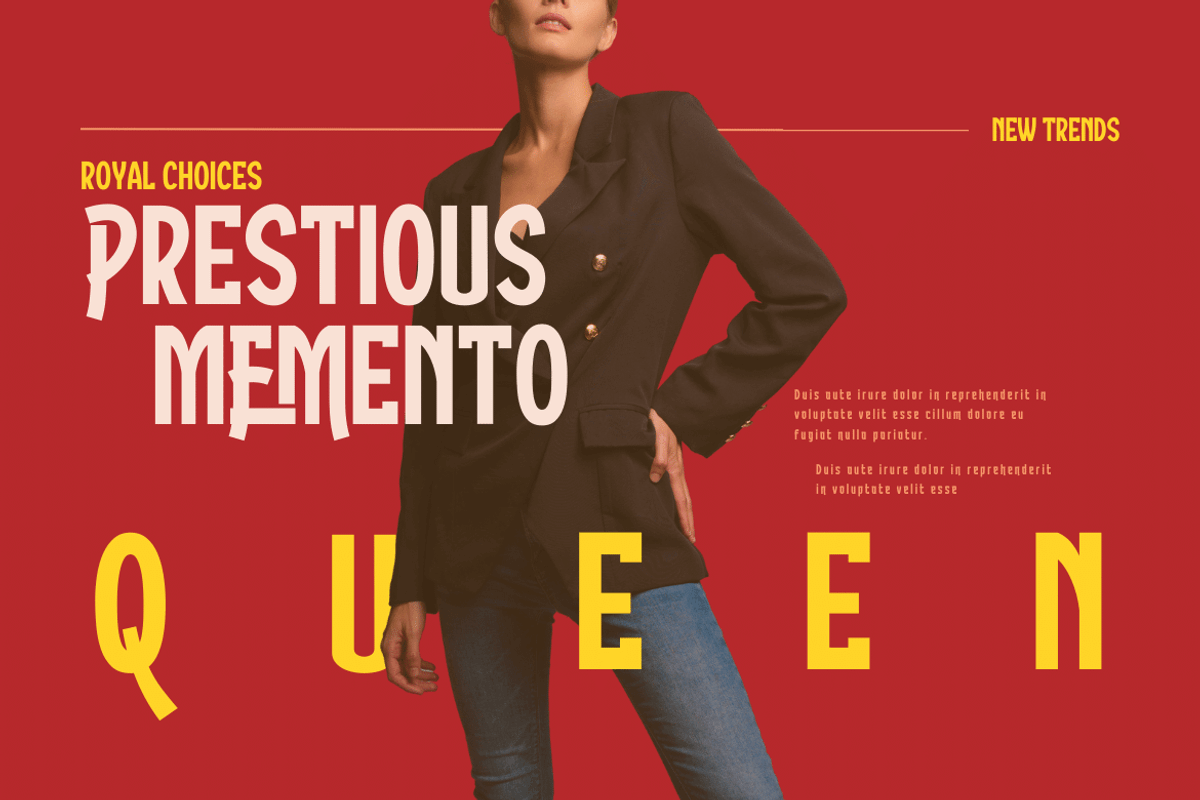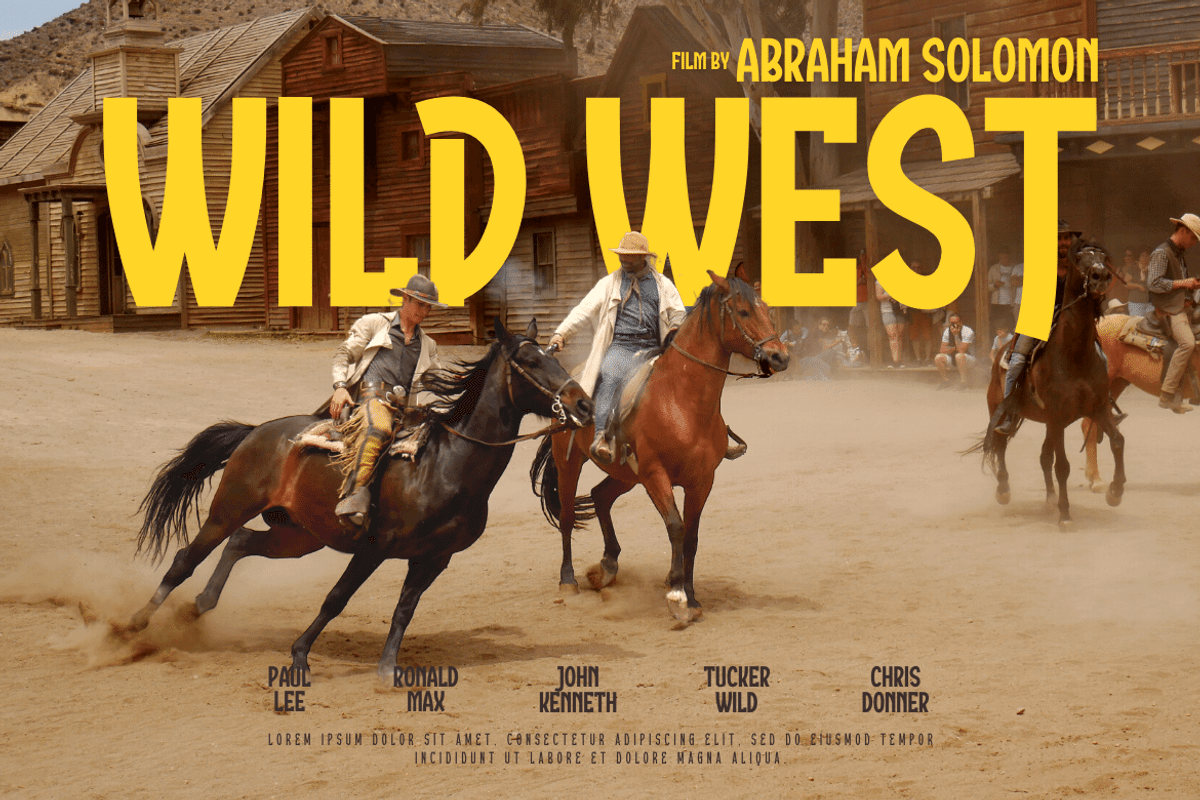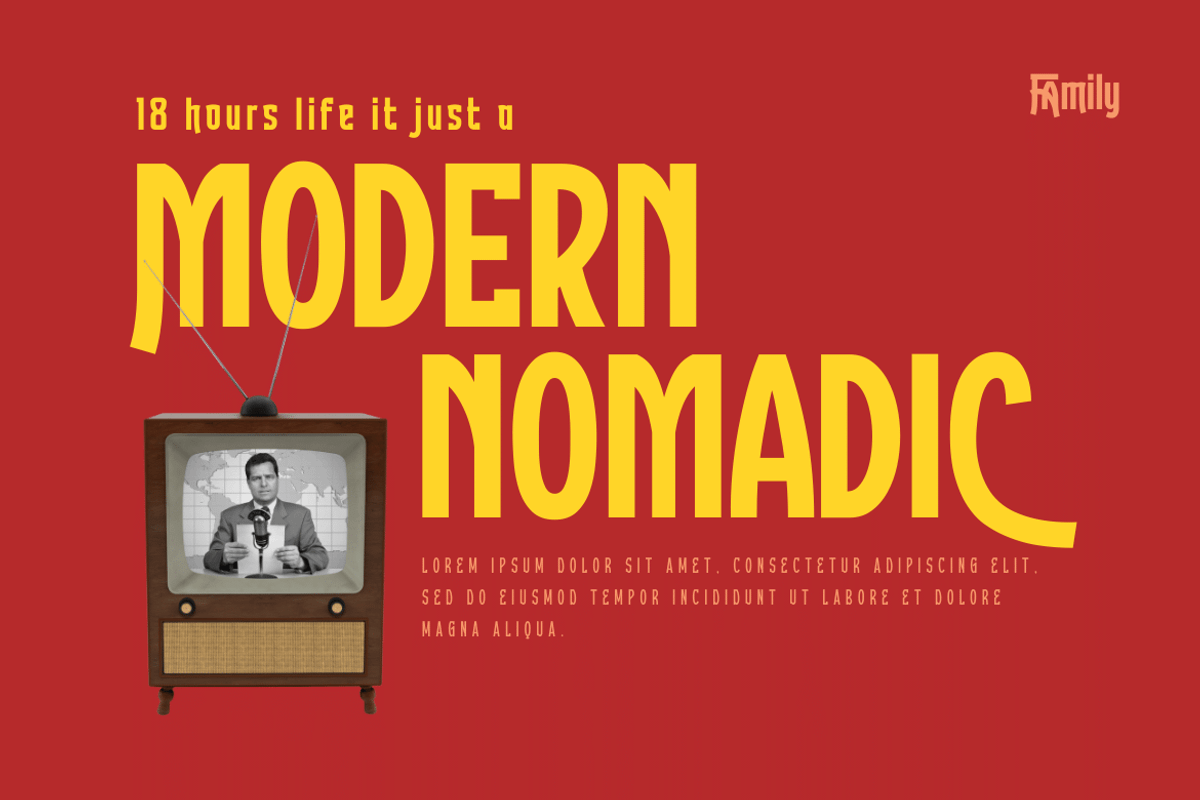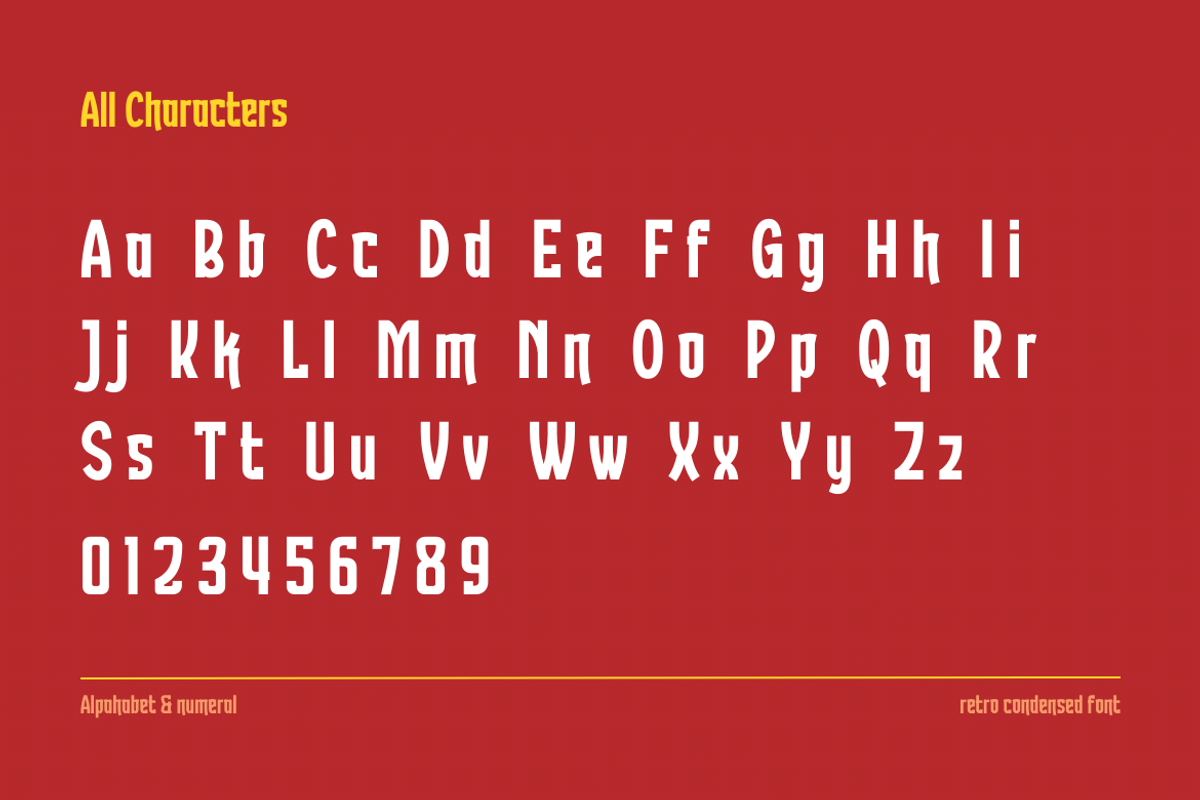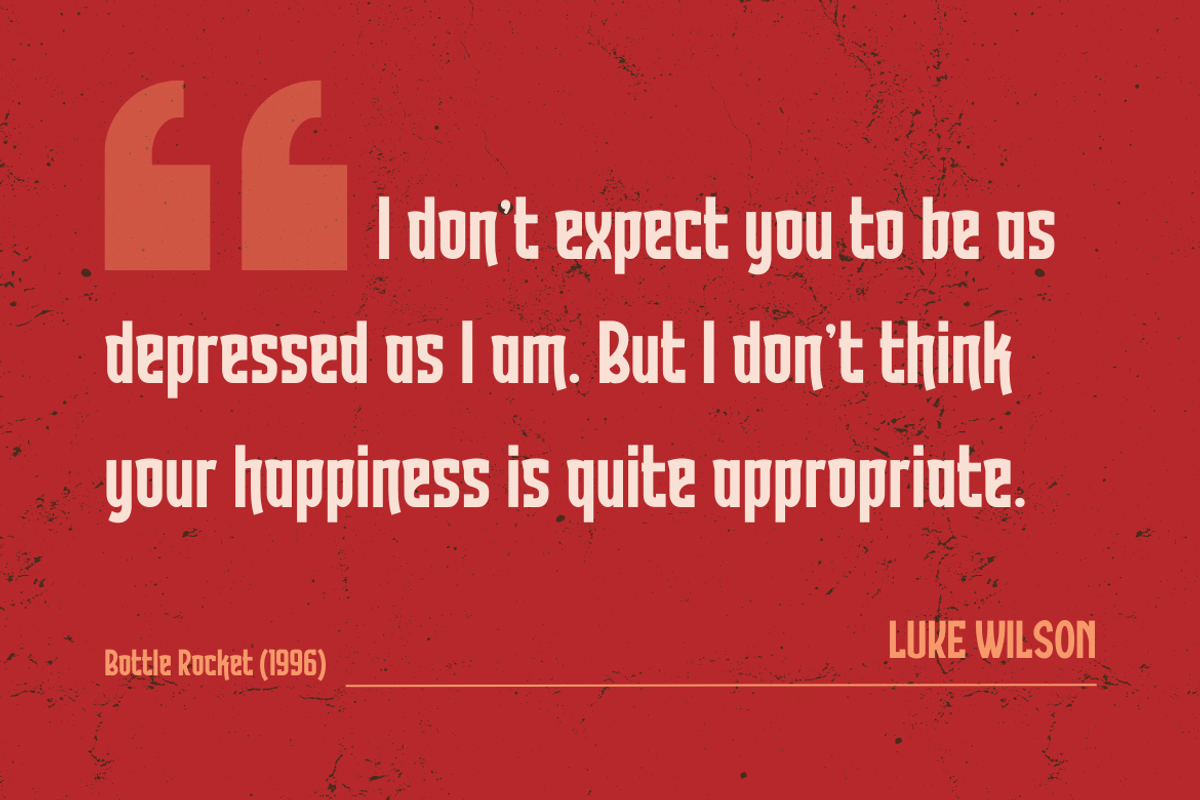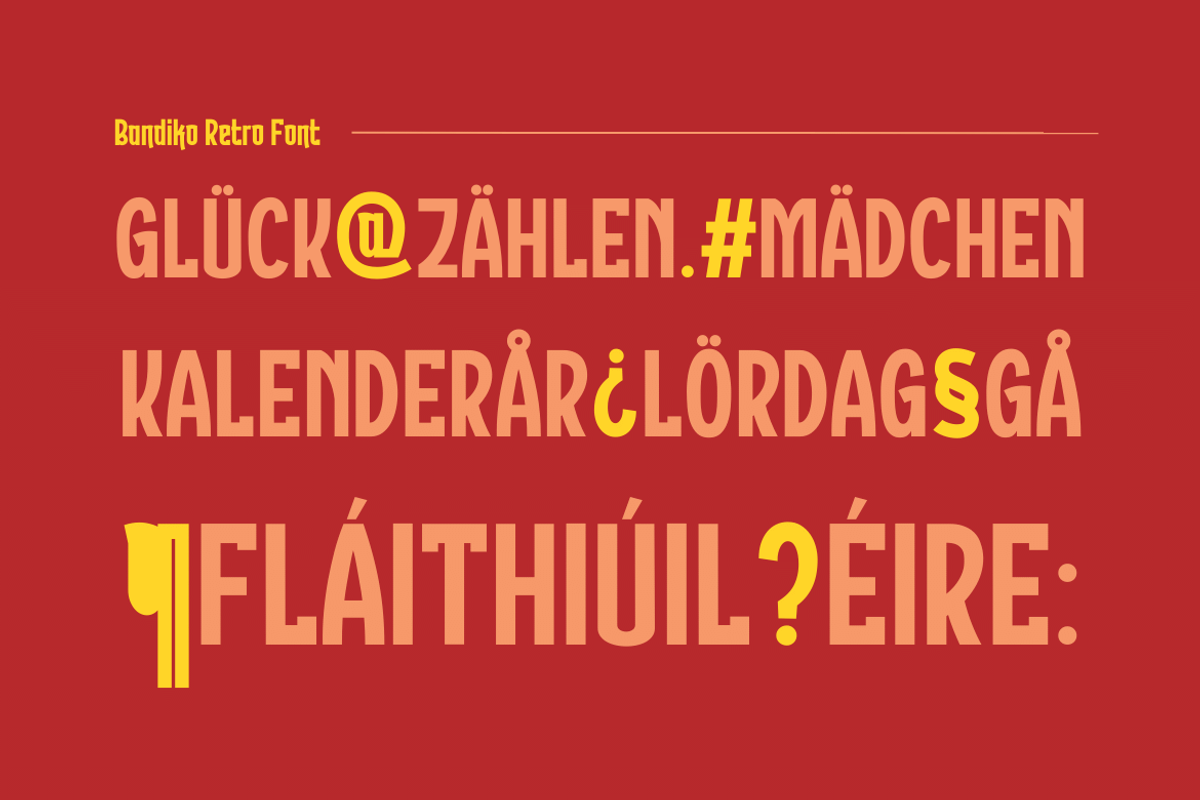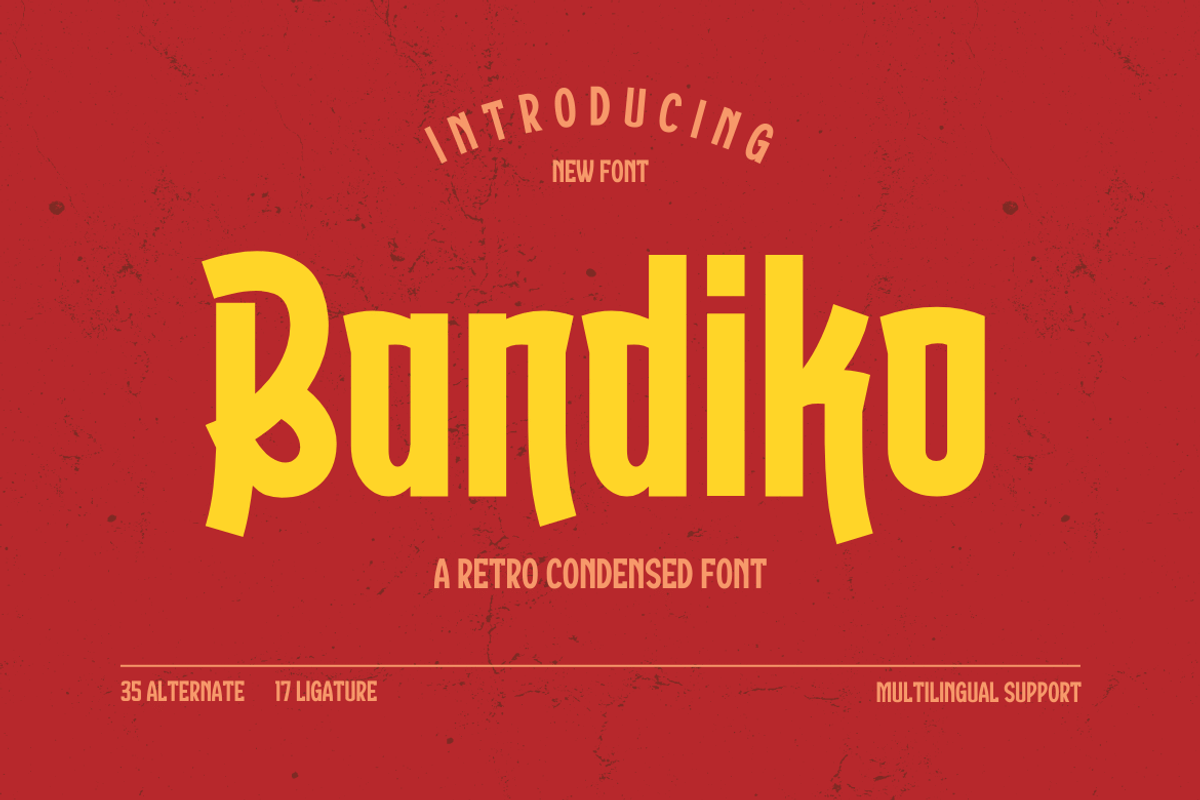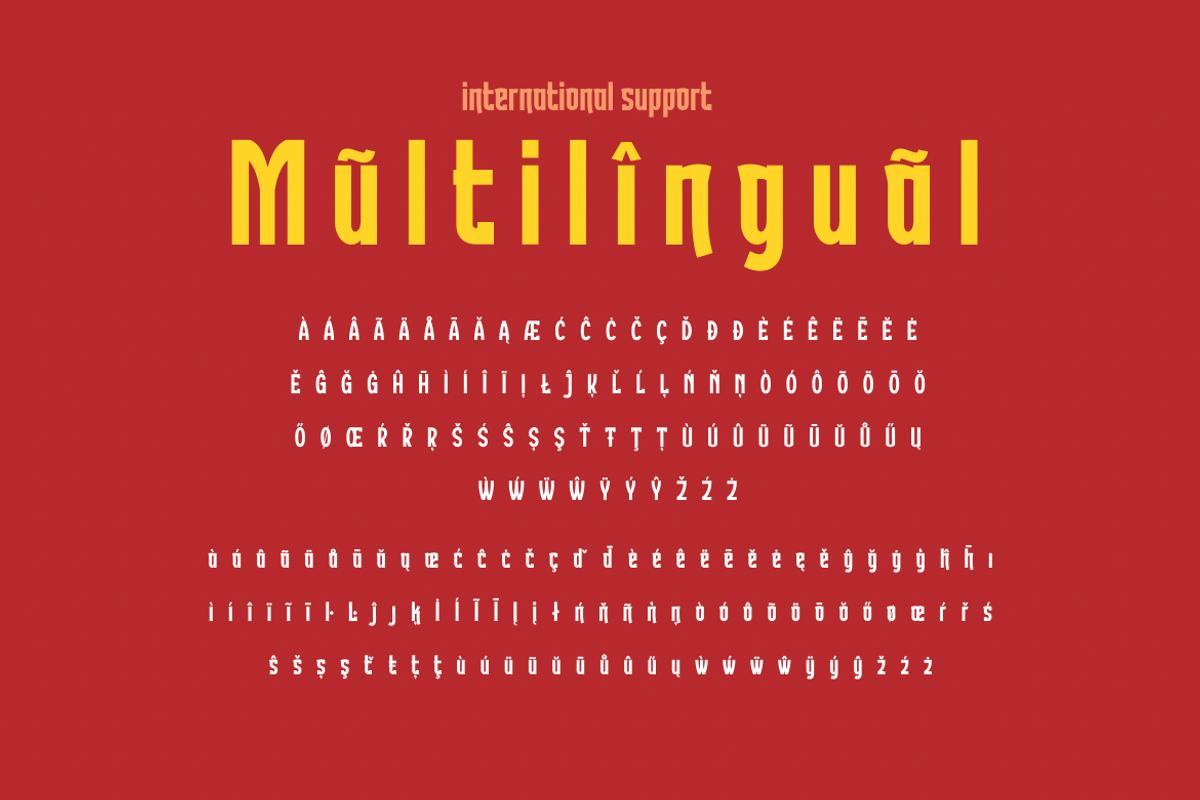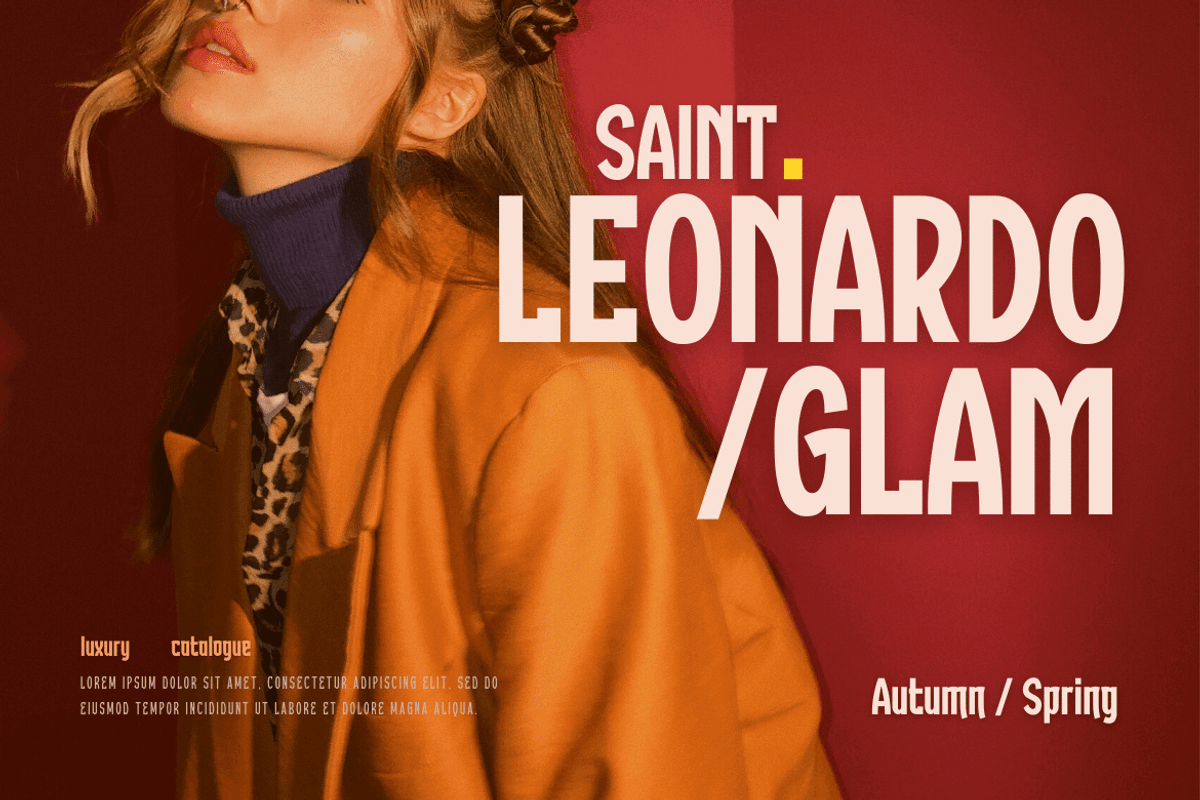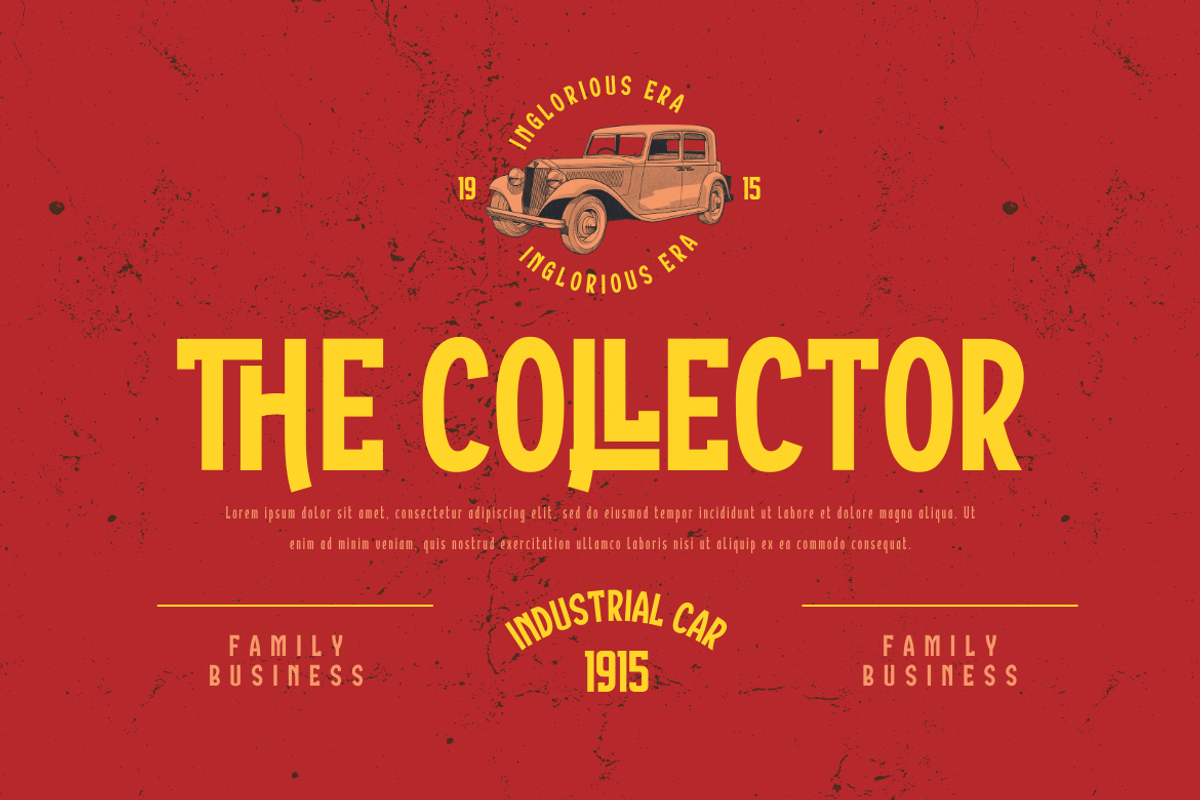
Bandiko | Retro Condensed Font
Introducing Bandiko, the perfect font for all your design needs! This font features a retro condensed theme with high and unique shapes, making it suitable for a wide range of design themes. The font comes with a stylistic set of alternate and unique ligatures, giving you the freedom to add a touch of personality to your designs. With Bandiko, you can create eye-catching designs that will surely stand out. Whether you’re working on a movie title, book cover, or branding project, Bandiko is the ideal font for you. So why wait? Download Bandiko now and start designing today!
- Alternate, Ligature